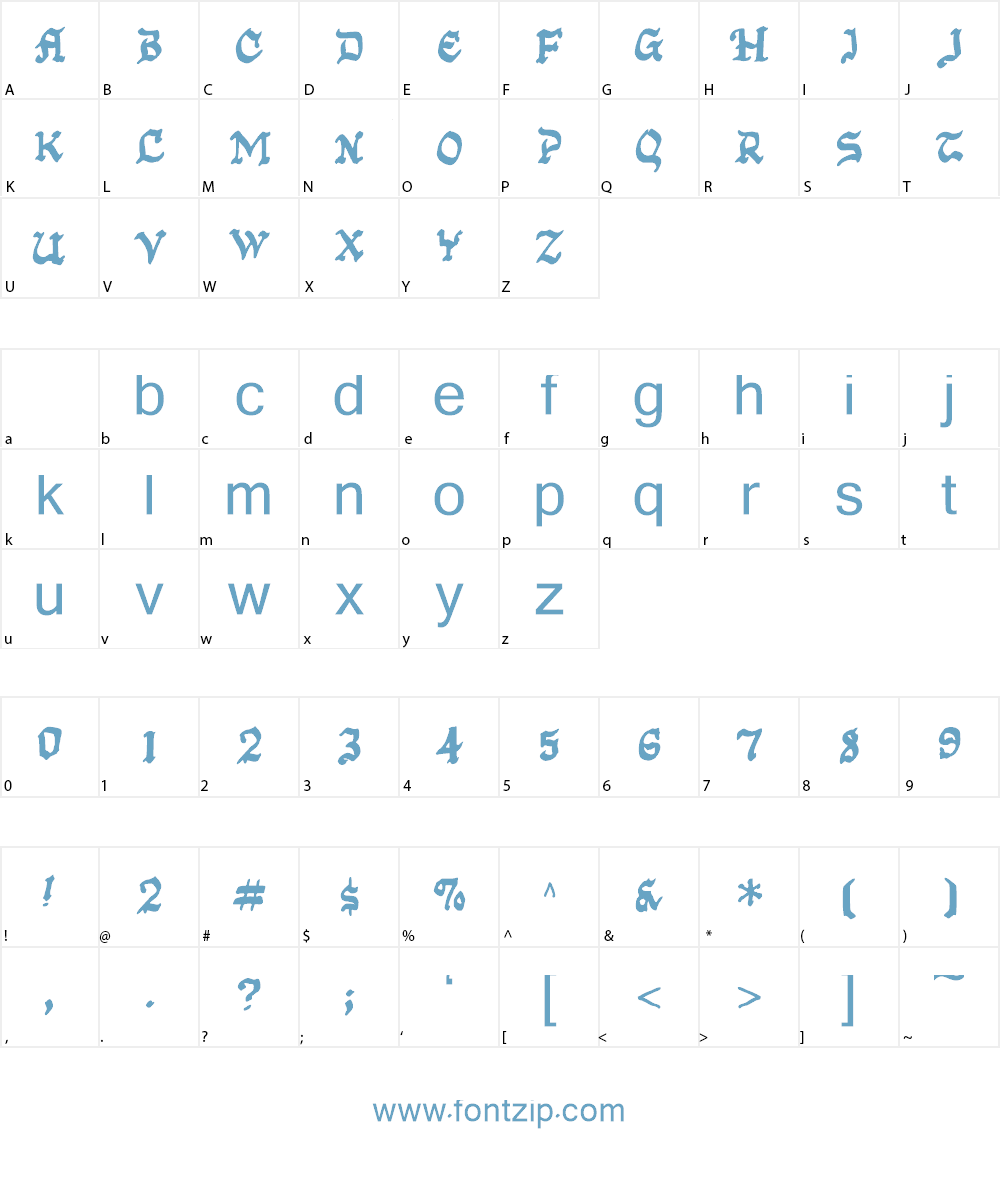
This is the CAPS for Kansas City Gothic. The font is still in development, but since Old English style caps are so popular, SWMCA decided to release them as a free font. The toll version coming soon to swmca.com will have the lowercase and the rest of the set including Cyrillic, Greek, and Hebrew along with a full alternate character set.